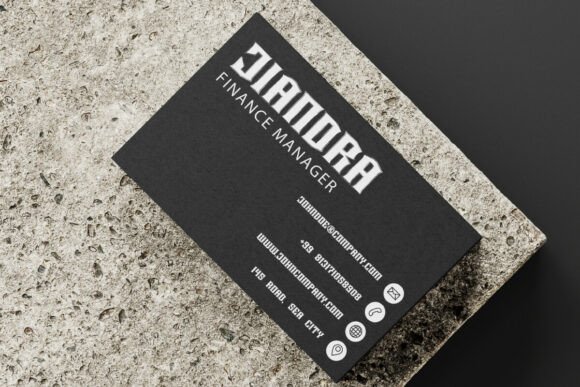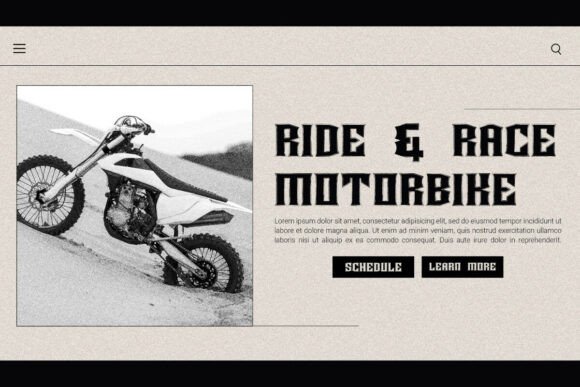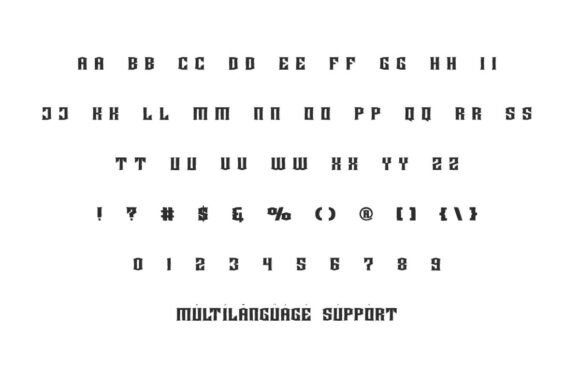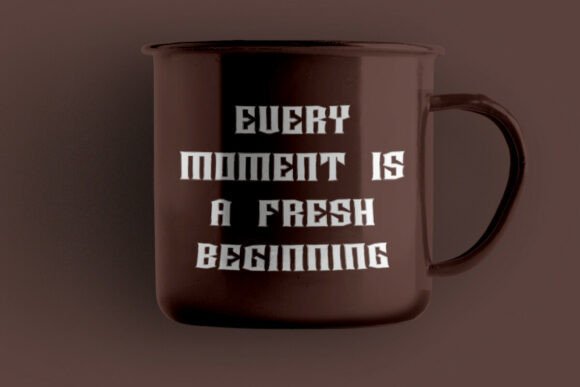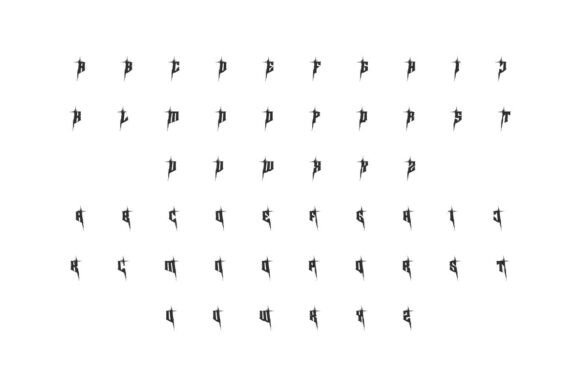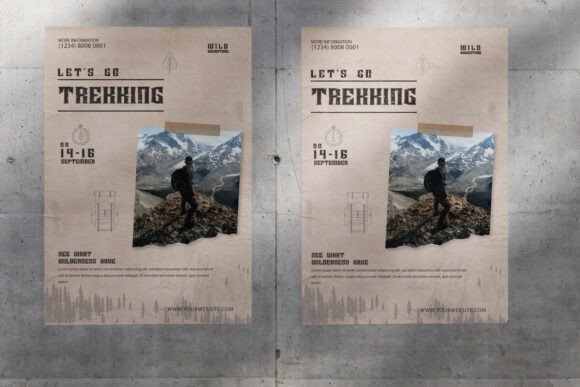
Unleash Your Design Potential with Bigroar Font: A Bold and Fearless Typeface
Are you tired of using the same old fonts in your designs? Look no further than Bigroar Font, a black metal racing display font that embodies the perfect blend of raw energy, structure, and dramatic flair. This bold and fearless font family is designed to take your designs to the next level, whether you’re working on music posters, tattoos, apparel, or branding projects.
The Unique Features of Bigroar Font
Bigroar Font is not just a single font, but a comprehensive font pack that includes multiple styles, allowing you to mix and match to create dynamic, high-energy designs. The font family combines the raw energy of brush strokes, the structure of sans and serif, and the dramatic flair of blackletter style, making it a versatile and impactful choice for any design project.
The Power of Blackletter Style
The blackletter style in Bigroar Font adds a touch of gothic intensity to your designs, perfect for creating bold and eye-catching headlines. This style is ideal for music posters, tattoos, and apparel designs that require a strong and fearless look. The blackletter style is also commonly used in branding and advertising, where a bold and dramatic look is desired.
The Edginess of Brush Font
The brush font in Bigroar Font brings an edgy attitude to your designs, perfect for creating unique and stylish text. This style is ideal for designs that require a more casual and laid-back look, such as clothing brand designs, coffee shop menus, and event posters.
The Versatility of Sans and Serif Options
The sans and serif options in Bigroar Font offer clean and adaptable pairings for headlines and body text. These styles are perfect for designs that require a more subtle and sophisticated look, such as graphic design projects, outdoor activities branding, and sports-related designs.
The Characteristics of Bigroar Font
Bigroar Font is a black metal racing display font that reflects courage and assertiveness through its sharp and solid letter style. The font is designed to be strong, fierce, and characterful, making it a perfect choice for any industry that requires a bold and fearless look.
Industries That Can Benefit from Bigroar Font
Bigroar Font is a versatile font that can be used in a variety of industries, including:
- Automotive: Create bold and eye-catching designs for car brands, racing teams, and automotive events.
- Clothing Brand: Add an edgy touch to your clothing brand designs with Bigroar Font’s unique styles.
- Coffee Shop: Create stylish and modern menus and branding for your coffee shop with Bigroar Font.
- Event or Festival: Use Bigroar Font to create bold and eye-catching posters and branding for your events or festivals.
- Game: Add a strong and fearless touch to your game designs with Bigroar Font’s bold and dramatic styles.
- Graphic Design: Use Bigroar Font as a versatile and impactful choice for your graphic design projects.
- Outdoor Activities: Create bold and adventurous designs for outdoor activities brands and events.
- Racing: Use Bigroar Font to create strong and fearless designs for racing teams and events.
- Sports: Add a bold and dynamic touch to your sports-related designs with Bigroar Font.
Why Choose Bigroar Font?
Bigroar Font is a unique and versatile font family that offers a range of benefits for designers and crafters. Here are just a few reasons why you should choose Bigroar Font for your next design project:
- Versatility: Bigroar Font comes in multiple styles, allowing you to mix and match to create dynamic and high-energy designs.
- Impact: The font’s bold and fearless design is sure to grab attention and make a lasting impression.
- Uniqueness: Bigroar Font’s unique blend of brush strokes, sans and serif, and blackletter style sets it apart from other fonts.
- Ease of use: The font is easy to use and pairs well with a range of other fonts and design elements.
Bigroar Font is a bold and fearless font family that is sure to take your designs to the next level. With its unique blend of brush strokes, sans and serif, and blackletter style, Bigroar Font offers unmatched versatility and impact. Whether you’re designing for music posters, tattoos, apparel, or branding, Bigroar Font is the perfect choice for any industry that requires a strong and fearless look. So why wait? Download Bigroar Font today and unleash your design potential!